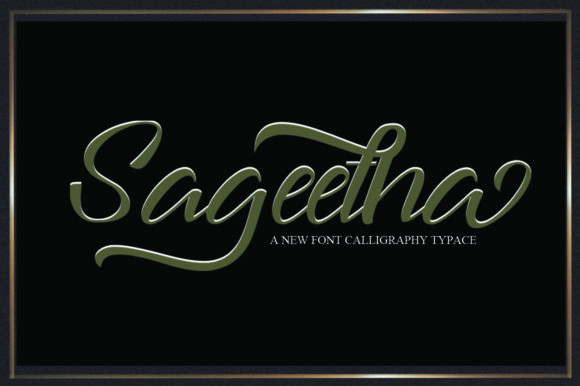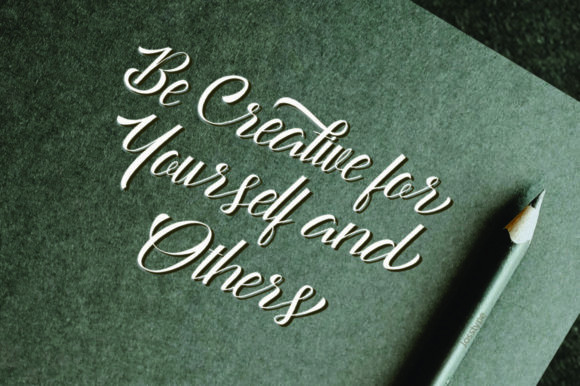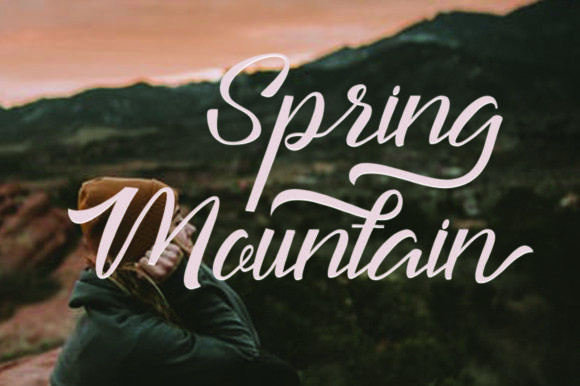
Sageetha Font
Sageetha is a beautiful script font with a classic style. Whether you’re looking for fonts for Instagram or calligraphy scripts for DIY projects, Sageetha will turn any creative idea into a true piece of art!